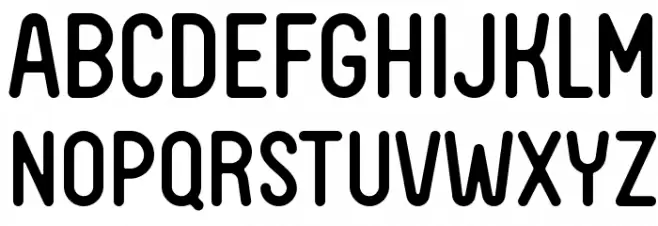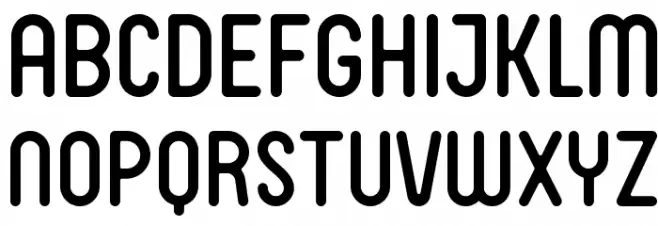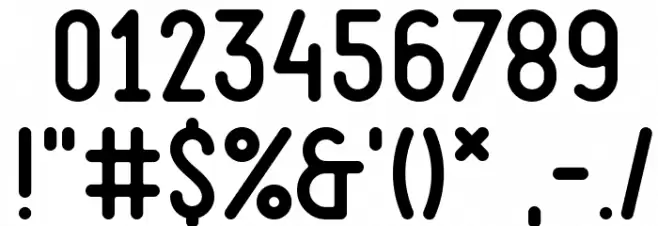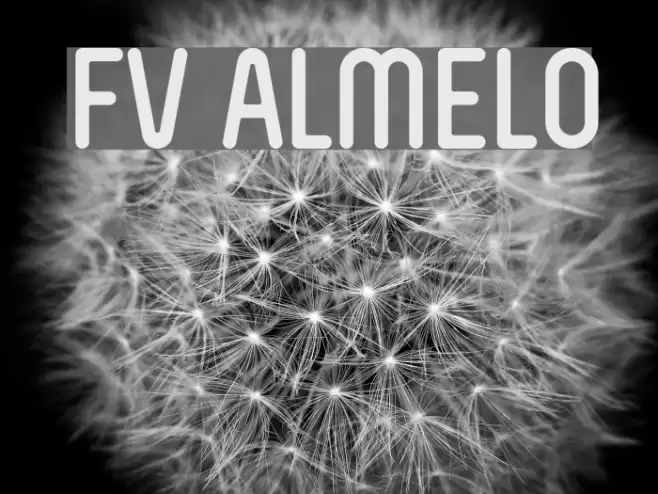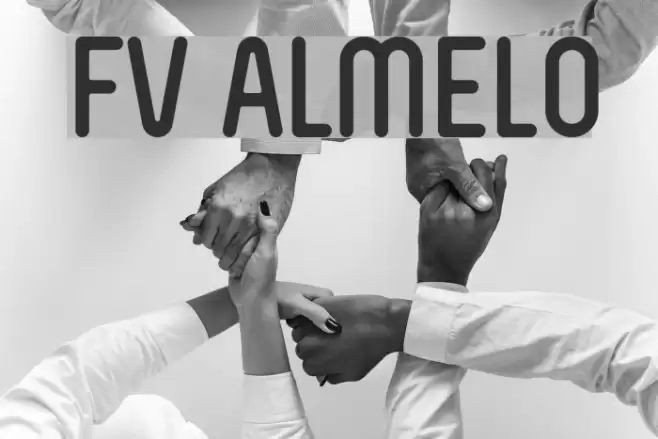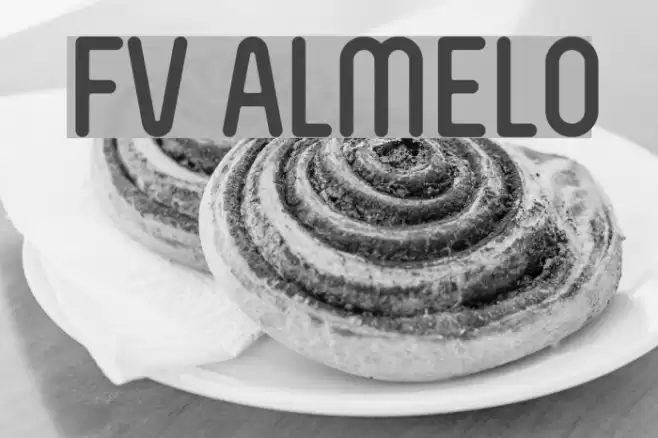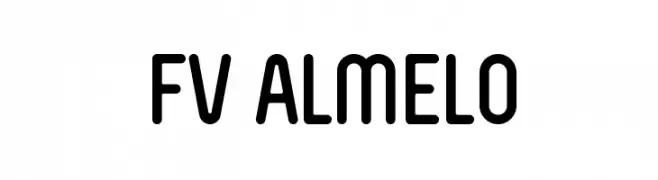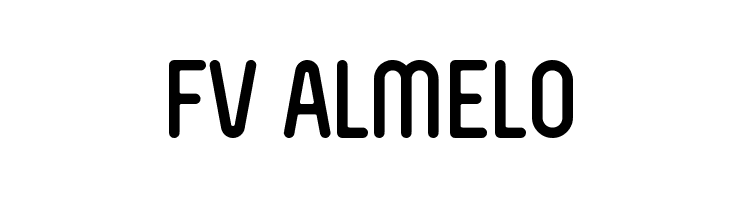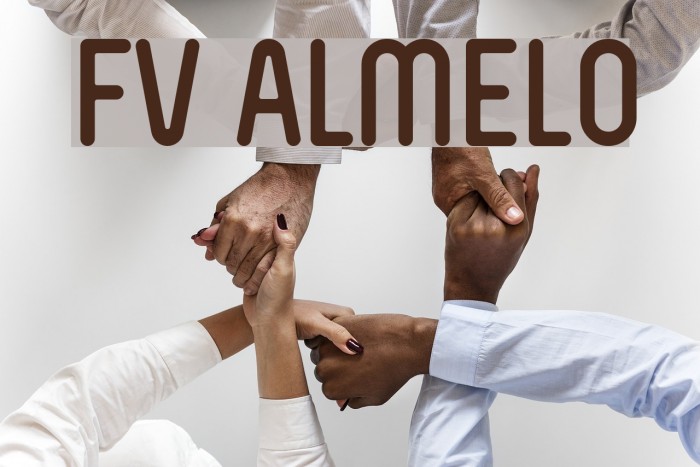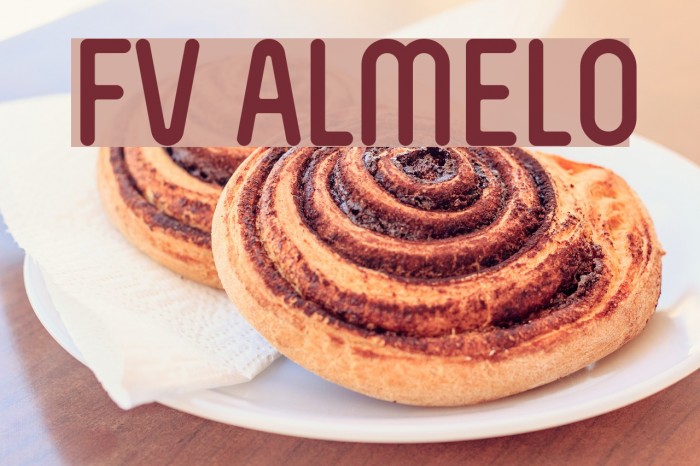
FV Almelo
This font features a modern, rounded sans-serif style with uniform stroke widths, giving it a clean and approachable appearance. The characters are evenly spaced with a slightly condensed width, making it suitable for both digital and print media. The rounded edges soften the overall look, providing a friendly and contemporary feel. The numerals and special characters maintain the same rounded aesthetic, ensuring consistency across all glyphs. This font is versatile, offering clarity and readability, making it ideal for a wide range of applications.
A modern, rounded sans-serif font with uniform strokes and a friendly appearance.
- Proposed Projects: Ideal for branding, signage, user interfaces, and educational materials.
- Width: Condensed